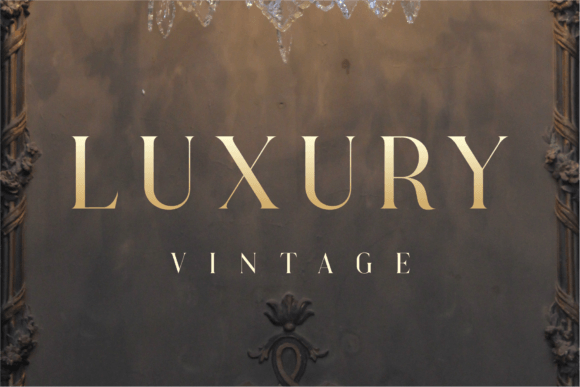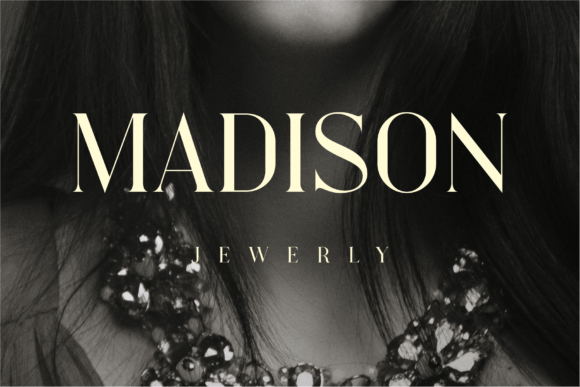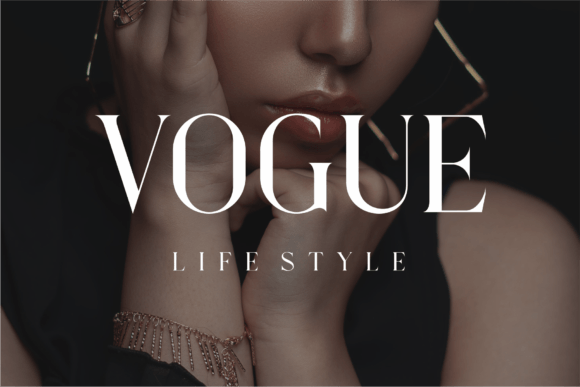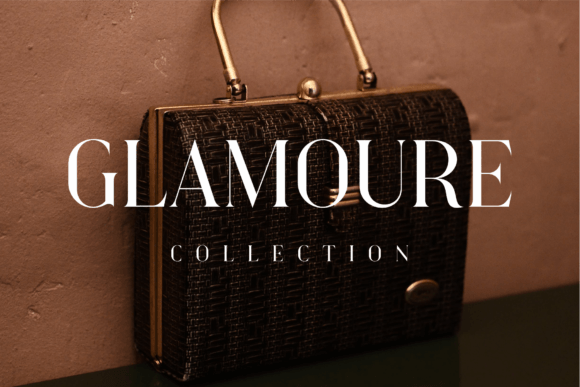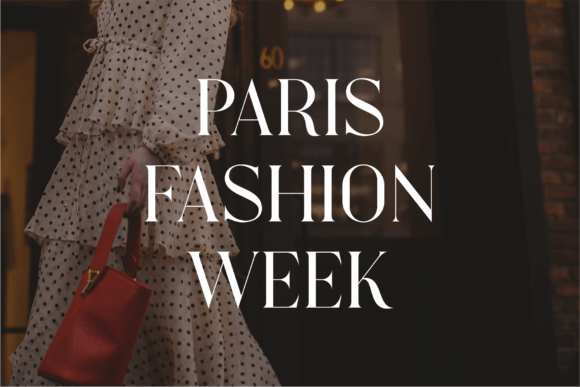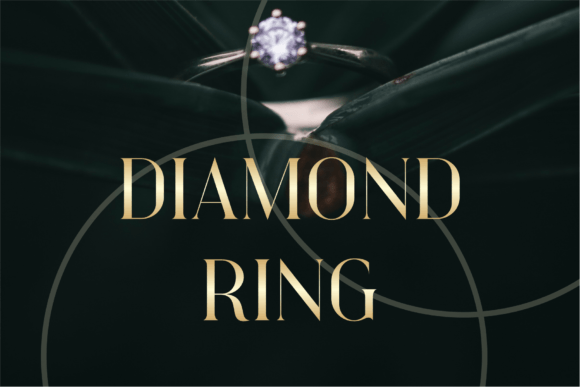
The Golde Font: A Designer’s New Best Friend
I’ll never forget the time I was working on a branding project for a luxury beauty client. I had spent hours agonizing over the perfect logo design, but something was off. The font I was using just didn’t feel elegant enough, and I couldn’t shake the feeling that it was holding back the entire design. That’s when I stumbled upon the Golde Serif Font. ✨ It was like a breath of fresh air – sleek, sophisticated, and perfectly suited to the high-end beauty brand. In this article, I’ll share my experience with the Golde Font, including what I love about it, some quirks to watch out for, and how to get the most out of it in your designs.
- ✨ Elegant and sophisticated design that’s perfect for luxury brands
- ✅ Highly versatile – works beautifully in a variety of design templates, from brochures to logos
- ⚡️ Great for video and advertising branding, with a clear and legible design
- 📚 Excellent for crafting and beauty design, with a range of OpenType features and glyphs to explore
While the Golde Font is an excellent choice for many design projects, there are a few things to keep in mind. 🤔
- ⚠️ Some users may find the font a bit too minimalist for certain design applications – it’s essential to pair it with the right graphics and imagery
- ⚠️ The font may not be the best choice for body text, as it can be a bit too elegant for long blocks of text
The Designer Inspiration Behind Golde Font
The Golde Font was inspired by the famous minimalist logo design movement. Its creator wanted to craft a font that was both elegant and versatile, perfect for a wide range of design applications. The result is a font that’s both timeless and modern, with a unique character that’s hard to find in other fonts.
Q: What is the Golde Font best suited for?
A: The Golde Font is perfect for luxury brands, beauty design, crafting, and high-end advertising.
Q: Is the Golde Font easy to read?
A: Yes, the Golde Font is highly legible, even at small sizes, making it perfect for a wide range of design applications.
Q: Can I use the Golde Font in digital and print design?
A: Absolutely! The Golde Font is optimized for both digital and print design, making it a versatile addition to your font library.